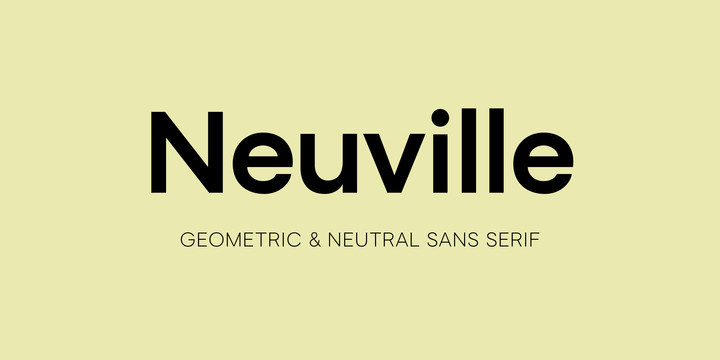
Neuville Font Family
Neuville is a geometric and low-contrast sans serif for everyday use related to typography. The shapes of the characters are clear, simple and balanced to allow for legibility and help the typeface deliver the contents with a neutral and objective voice. The Neuville family includes three weights and has a wide range of OpenType features such as tabular figures, numerators and denominators, superscript and subscript numbers, and case-sensitive forms.